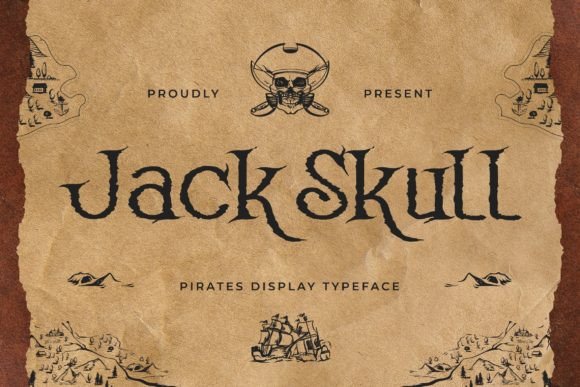
Looking for a unique and captivating font for your creative resume? Look no further than Jack Skull Font from TypeFactory. This decorative font family is the perfect choice for anyone looking to add a touch of adventure and excitement to their designs.
With its pirate fantasy aesthetic, Jack Skull Font is the ideal choice for any movie, game, or pirate-themed project. Whether you're creating a logo, poster, or social media graphics, this font will instantly transport your audience to a world of swashbuckling excitement.
But Jack Skull Font isn't just visually appealing - it's also incredibly versatile. With PUA encoding, you can easily access all of the amazing glyphs and ligatures, making it easy to customize the font to fit your unique needs.